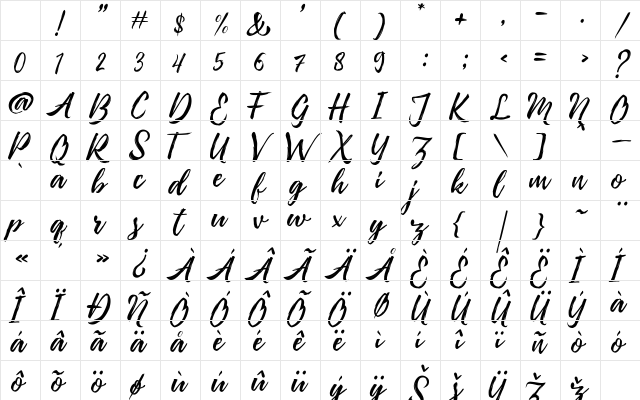
Complete Pennello Free Demo Script Regular glyph index. Displaying only characters natively supported by Pennello Free Demo Script Regular font.
Pennello Free Demo Script flows with the natural rhythm of handwritten lettering, making it ideal for designs that call for warmth and personal expression.
Font Pairing: Combine Pennello Free Demo Script with a simple geometric sans for maximum contrast - the tension between flowing curves and clean structure is a classic typographic pairing.
Pro Tip: Use Pennello Free Demo Script for short runs of text - names, titles, or taglines. Extended body copy in script faces tires the eye quickly.